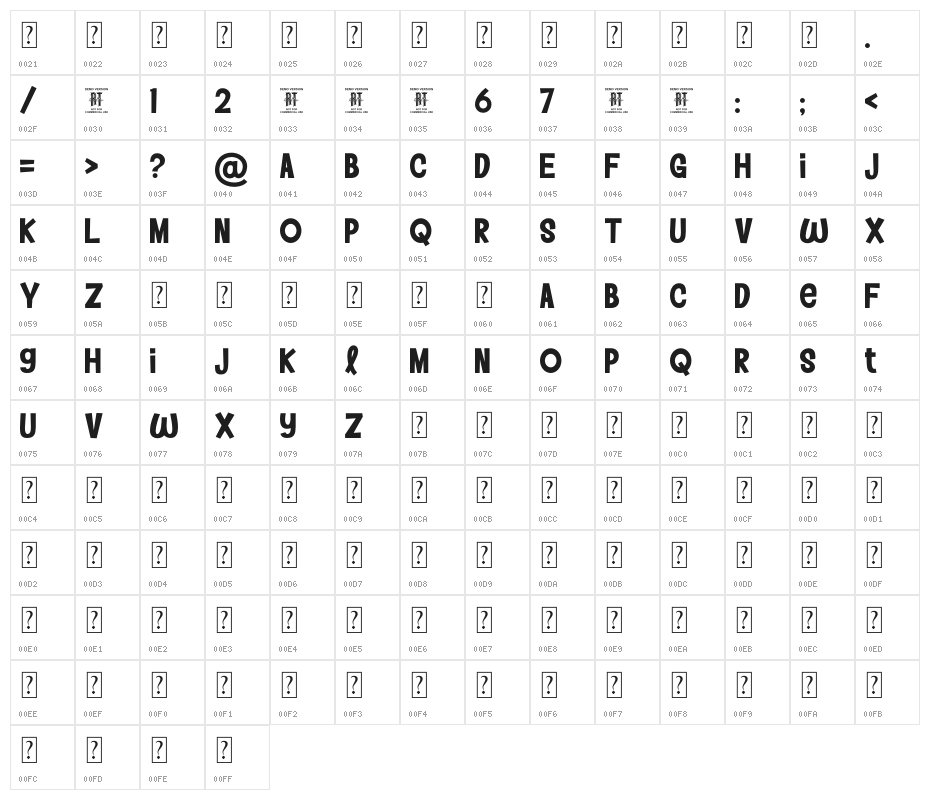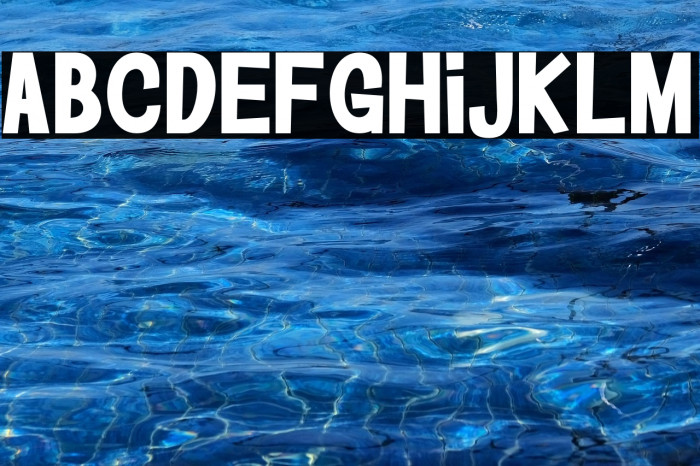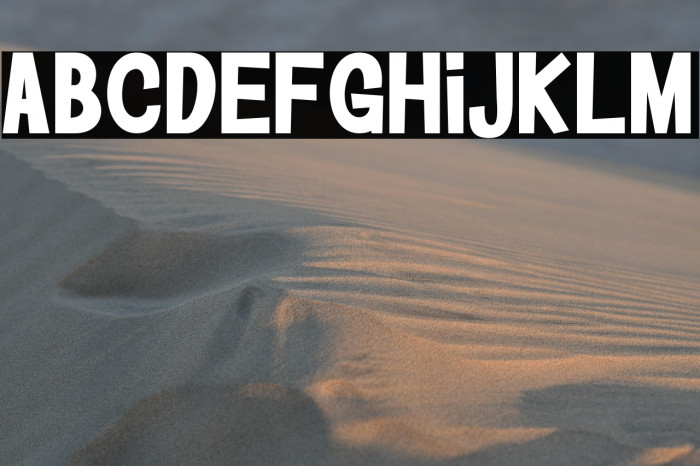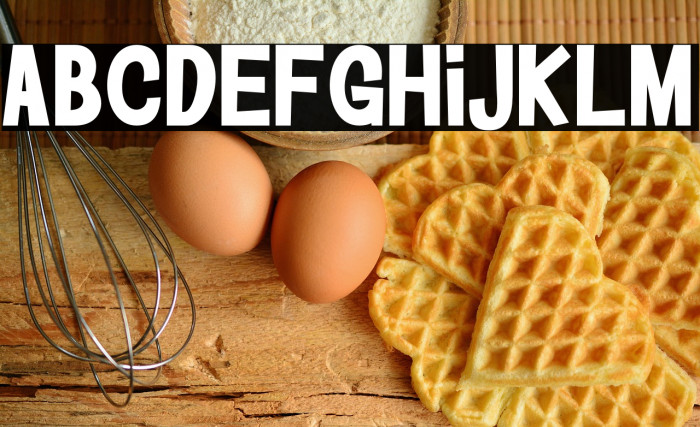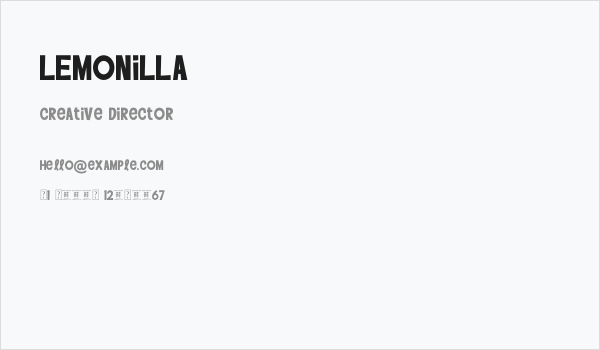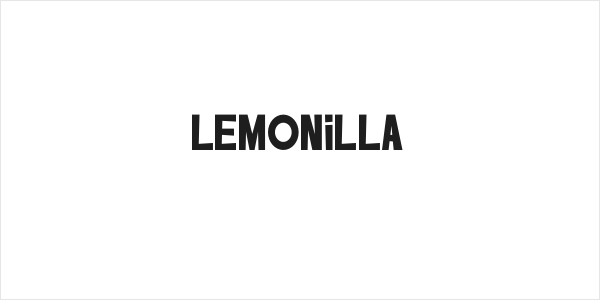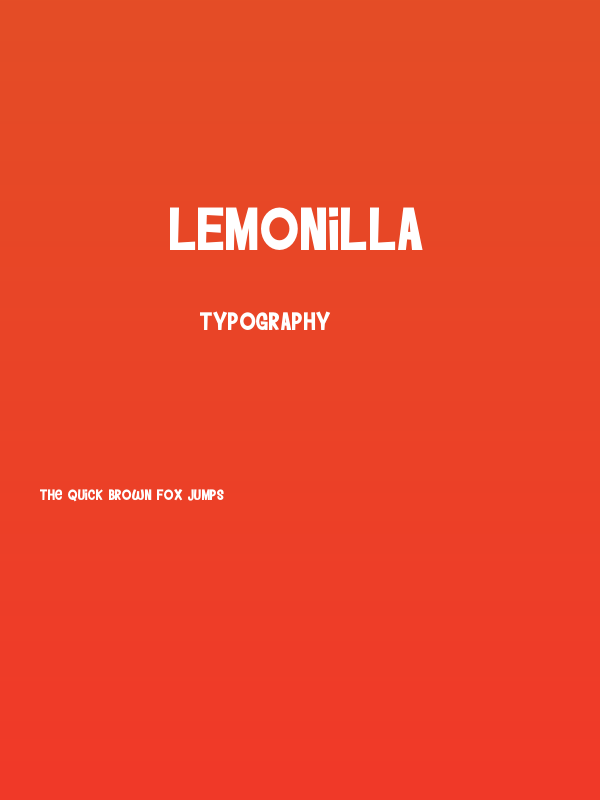
LEMONILLA Font
LEMONILLA Description
This font features a bold and playful style with a distinctively quirky character design. The uppercase letters are robust and slightly irregular, giving them a hand-drawn appearance. The lowercase letters maintain this playful aesthetic, with unique curves and angles that add a whimsical touch. The numbers are bold and consistent with the overall style, making them stand out. Special characters are creatively designed, adding to the font's charm. This font exudes a sense of fun and creativity, making it ideal for projects that require a lively and engaging typeface.
| Overall Style | Playful, Quirky, Hand-drawn |